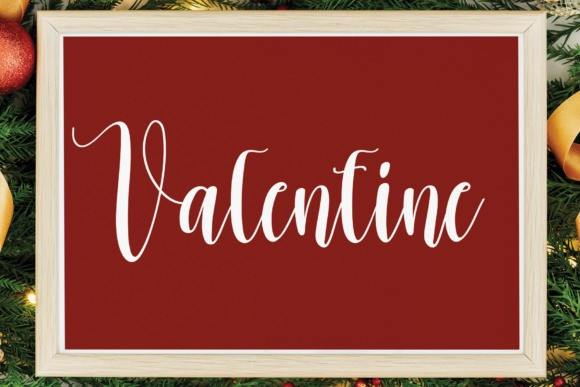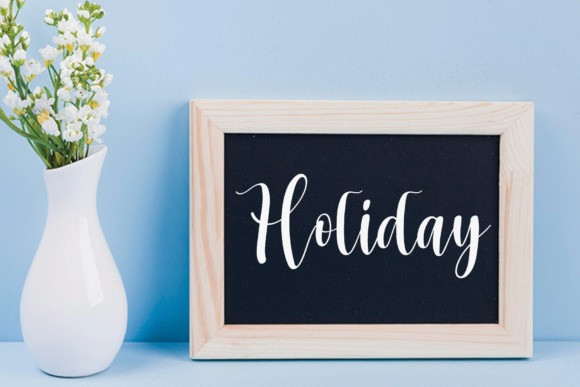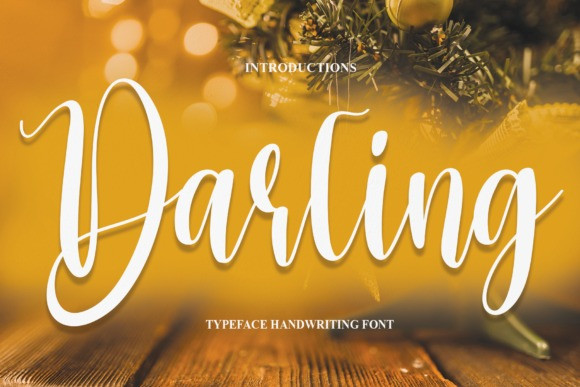
Darling Font
Darling Font is a gorgeous script font. This font features letters that are perfect for wall displays, wedding invitations, social media post logos, advertisements, product packaging and more.